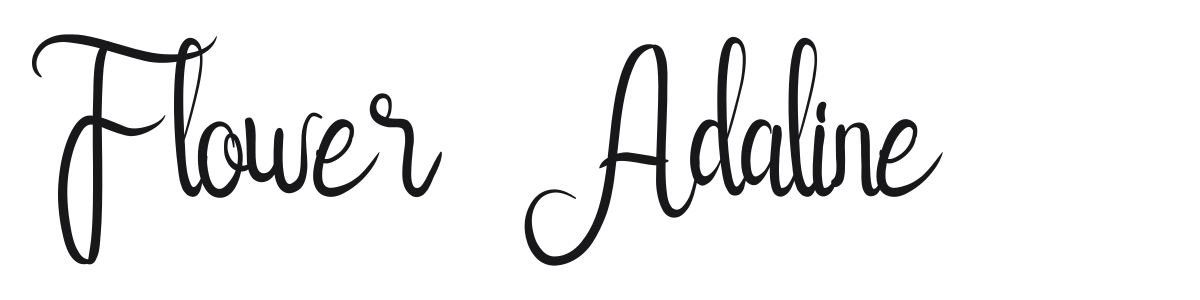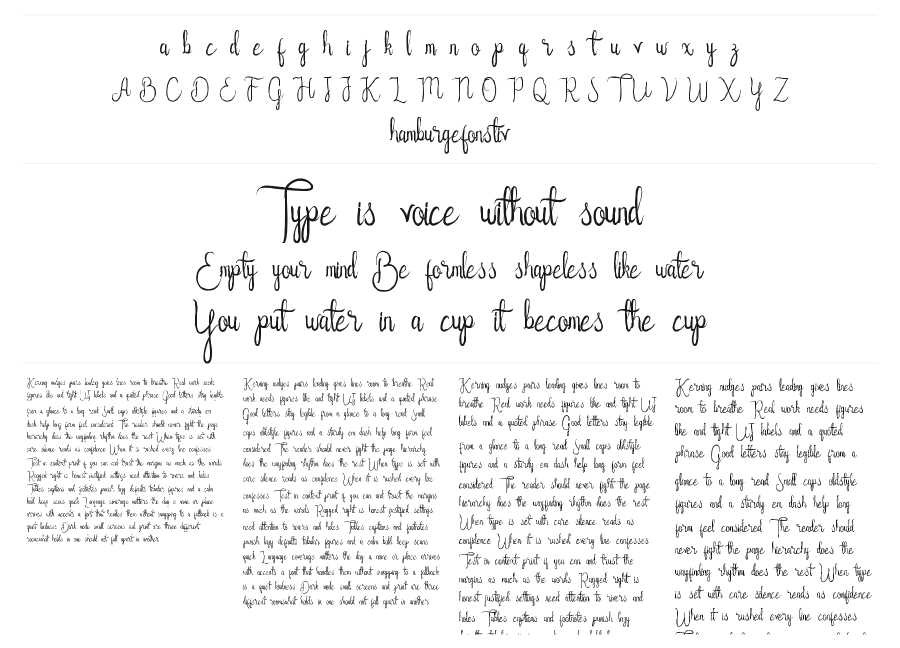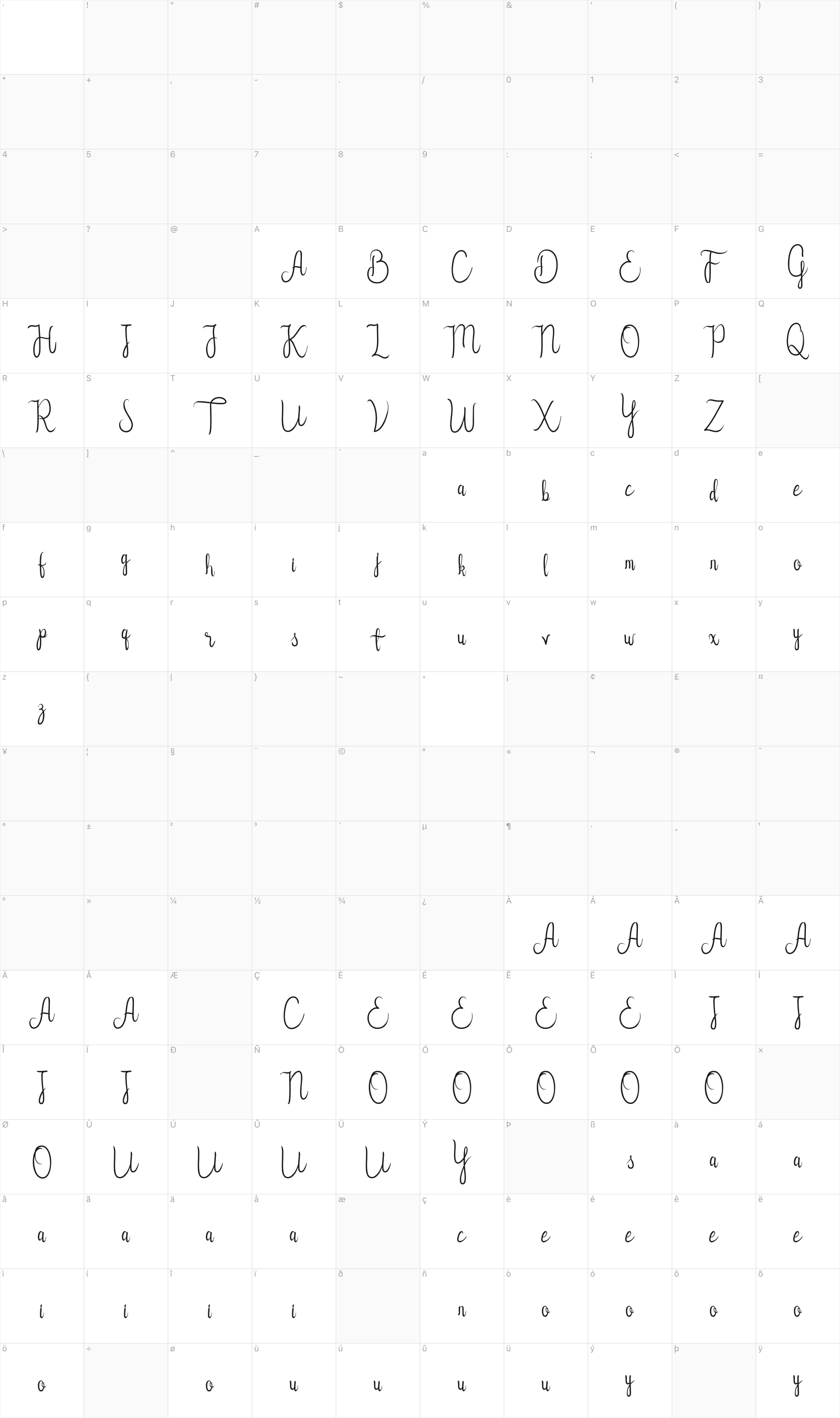
Flower Adaline
Flower Adaline is a bouncy connected script with looping ascenders and a relaxed, handwritten feel. The flowing strokes and uneven rhythm give it genuine pen-lettering character rather than a mechanical regularity. It suits brand identities, packaging, and social content where warmth and femininity are the goal.